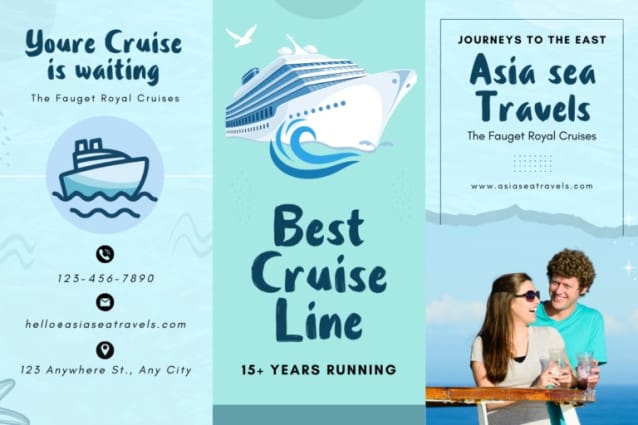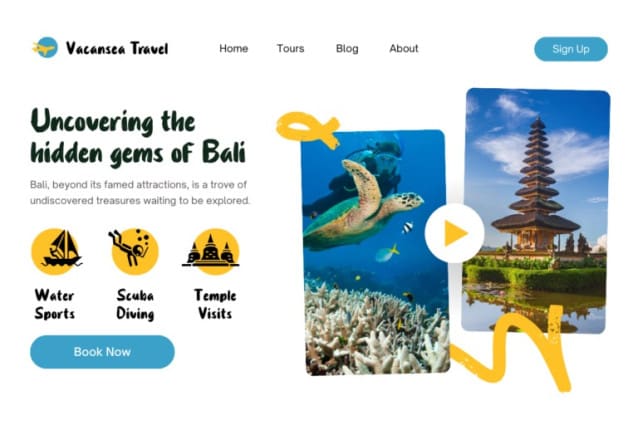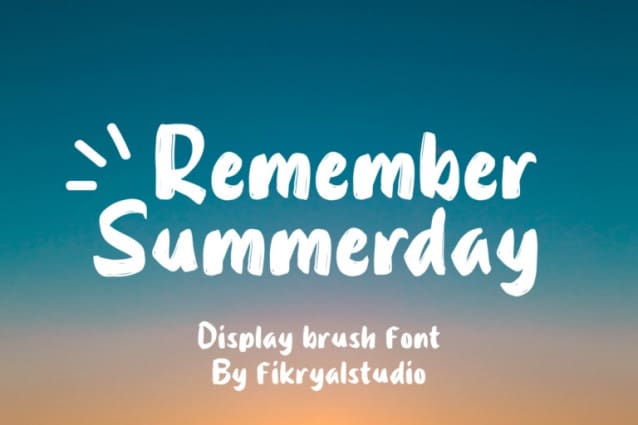
Remember Summerday Font
Remember Summerday Font is a brush display font that presents a warm and inviting character, giving it a fresh and vibrant touch as if reminding us of beautiful summer days. With a strong brush style, each letter feels lively and expressive, featuring distinctive brush movements and providing an organic and natural feel.
This font features a bold, accented design, perfect for highlighting titles, slogans, or text that needs an artistic touch. Each letter displays a unique personality, with irregularities arranged beautifully, adding an interesting visual dimension and inviting the eye to explore every detail.
Remember Summerday takes us on a refreshing journey of imagery, reminding us of the warmth and joy of summer. Suitable for use in a variety of design projects that require a warm, bright and vibrant feel, this font is the perfect choice to create a distinctive and eye-catching impression.